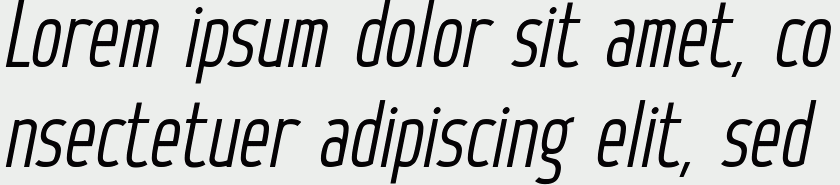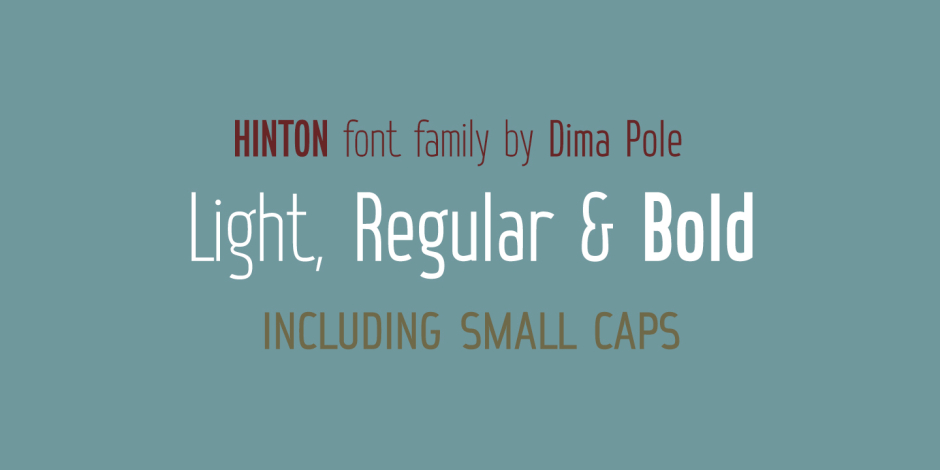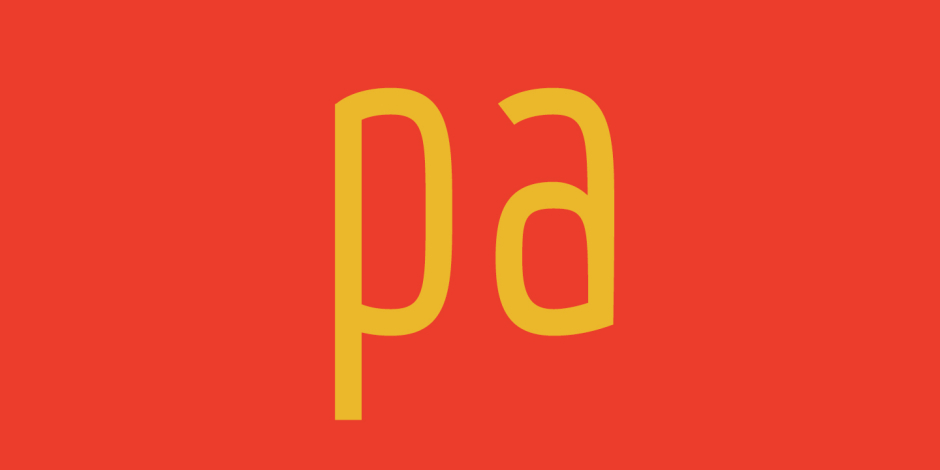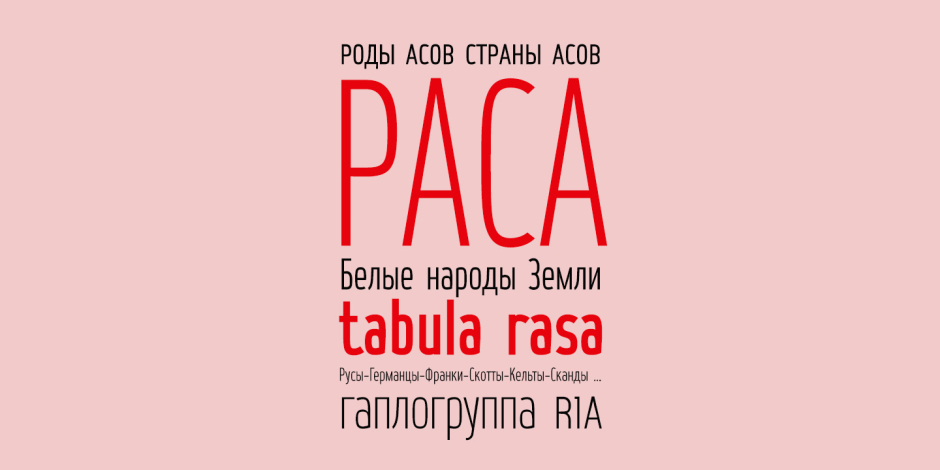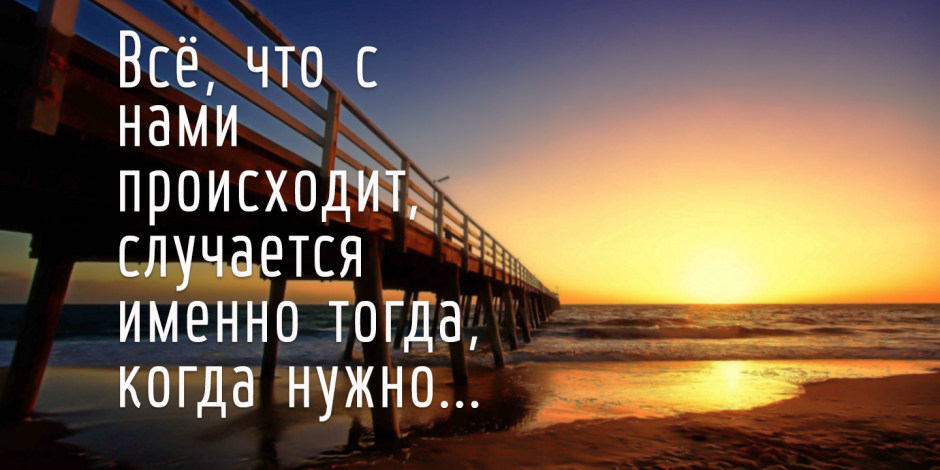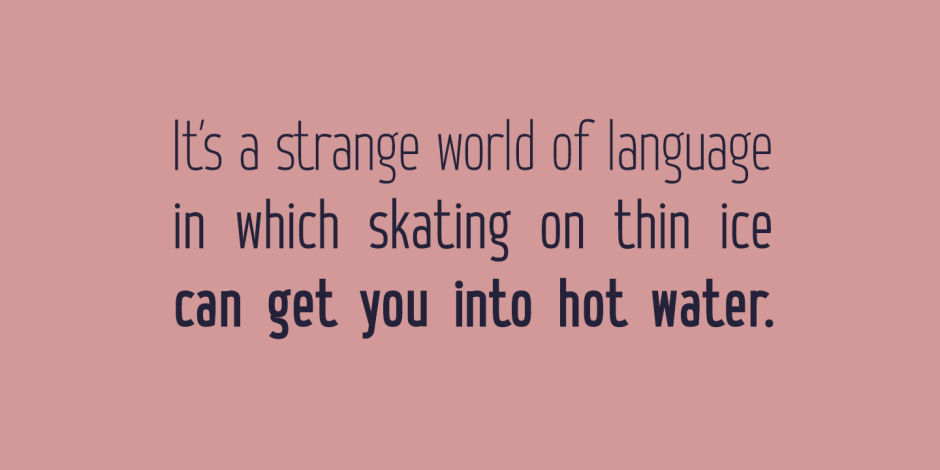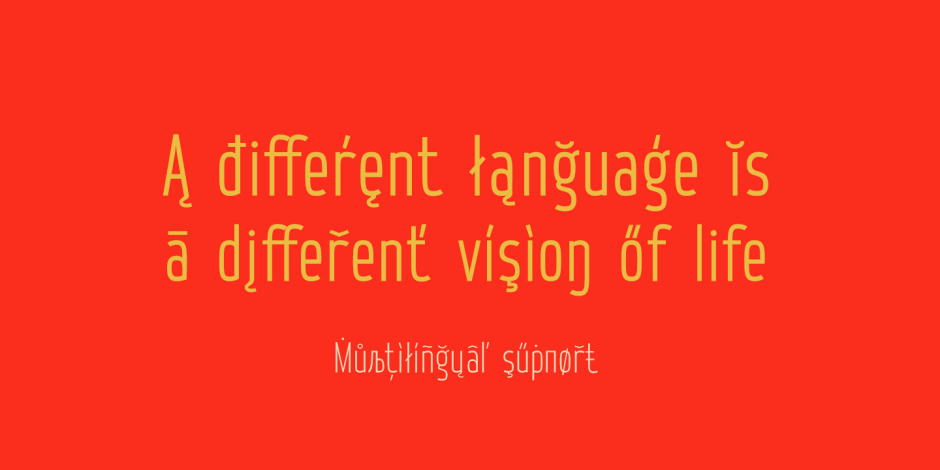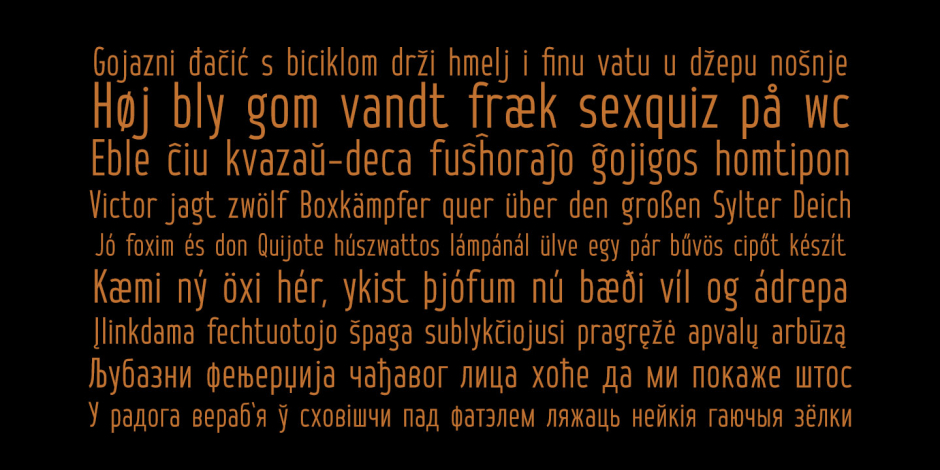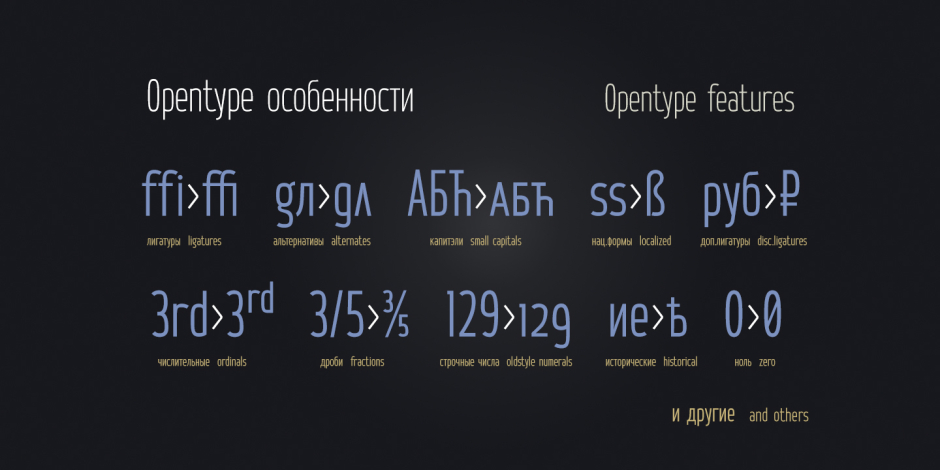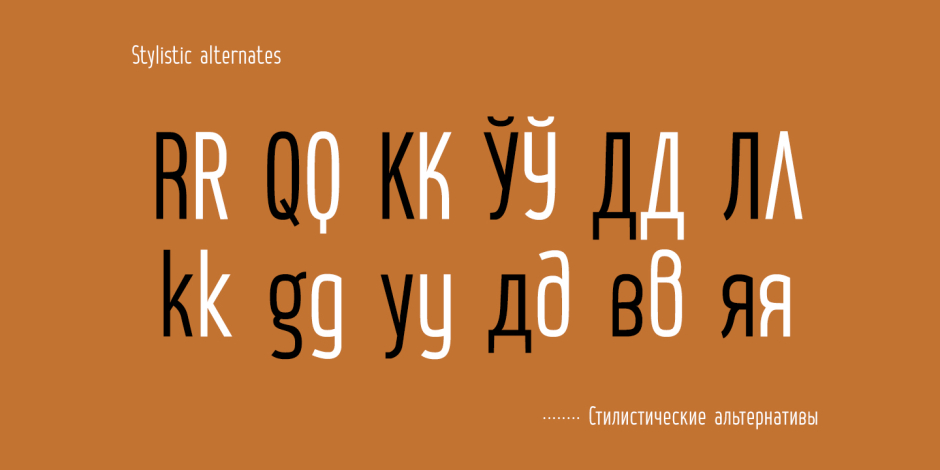
Hinton
/ Hinton Italic
Hinton is a modern, clean text font, including 840+ characters, many Opentype features, all European & Slavic symbols. It is calm, orderly and a bit perky. Hinton has a lightweight and pleasant design, so it fits well and easy to read. Its characters are simultaneously austere and elegant, and have their own flavor.
Hinton includes all European and Slavic alphabets, in addition to basic Latin and Russian there are German, Dutch, Spain, French, Romanian, Turkish, Czech, Polish, Croatian, Serbian, Ukrainian, Belorussian, Baltic, Scandinavian, Icelandic and others alphabets.
Euro and other 8 signs of currencies.
Opentype features: stylistic alternates, manual kerning, standard ligatures, discretionary ligatures, small capitals, capitals to small caps, case, oldstyles numerals, tubular numerals, localized forms, stylistic set, historical forms, fractions, ordinals, numerators, denominators, slashed zero and others...
Hinton includes all European and Slavic alphabets, in addition to basic Latin and Russian there are German, Dutch, Spain, French, Romanian, Turkish, Czech, Polish, Croatian, Serbian, Ukrainian, Belorussian, Baltic, Scandinavian, Icelandic and others alphabets.
Euro and other 8 signs of currencies.
Opentype features: stylistic alternates, manual kerning, standard ligatures, discretionary ligatures, small capitals, capitals to small caps, case, oldstyles numerals, tubular numerals, localized forms, stylistic set, historical forms, fractions, ordinals, numerators, denominators, slashed zero and others...